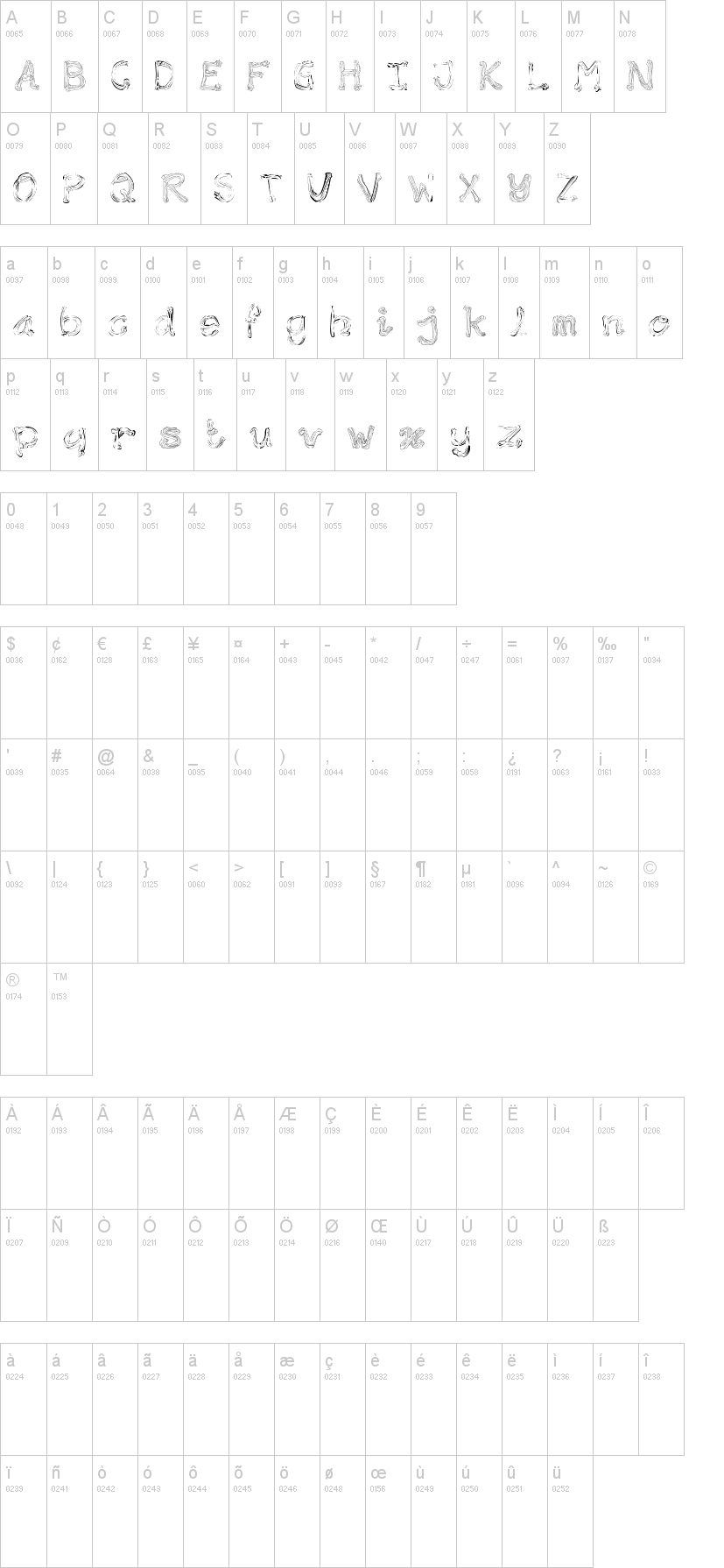
Шрифт Wondermilk
A typeface I made by cupcake icing. I then did a vector art of it. Hope you like it. Feel free to let me view your work with my typeface! :)